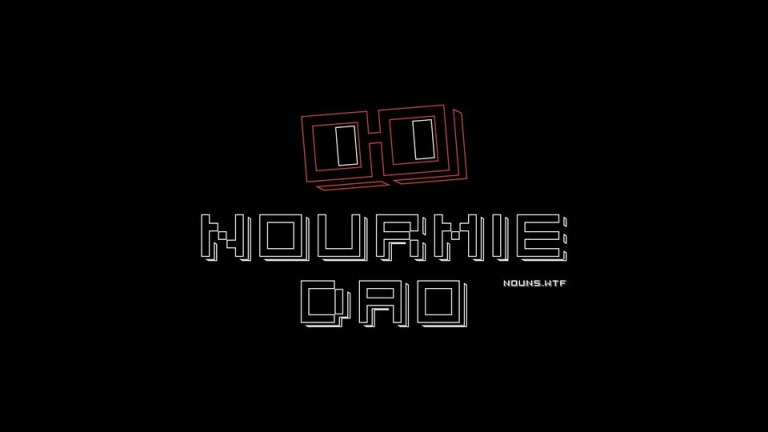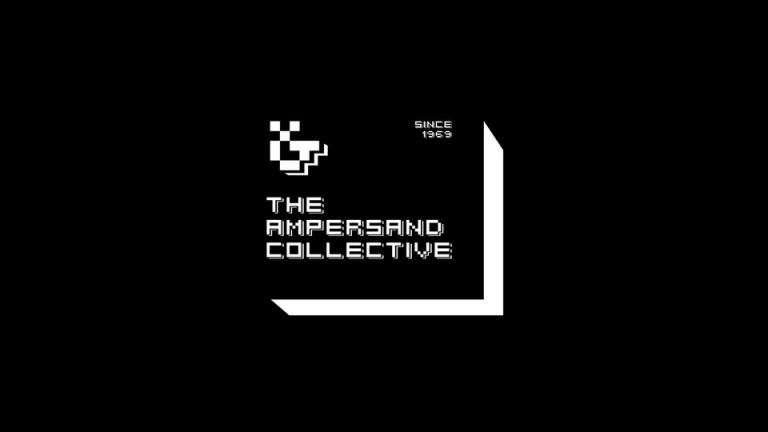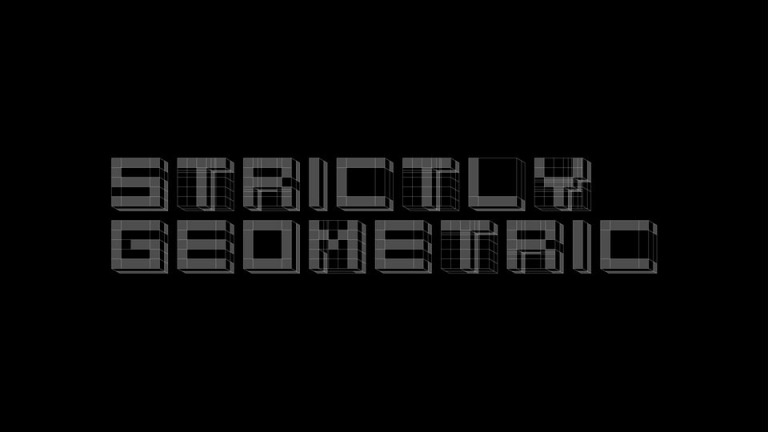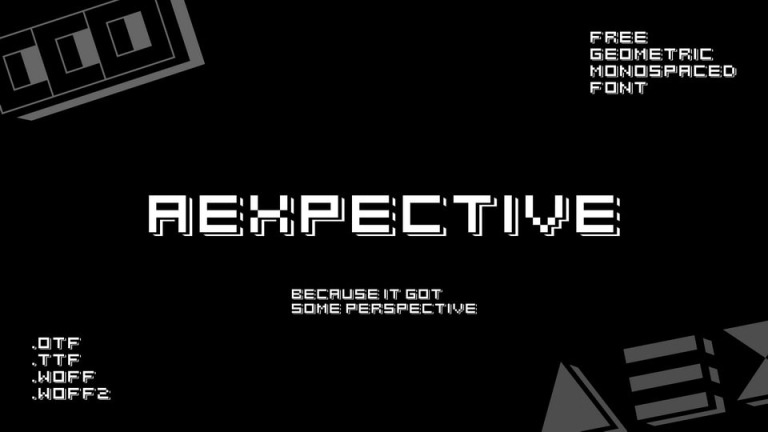
Aexpective Display Font is a retro pixel font style, perfect for retro game design theme. Also suitable for movie, documenter, film, logo, poster, game, book cover, headlines, title and many more projects. Add this font to your creative ideas and notice how it will make them stand out!